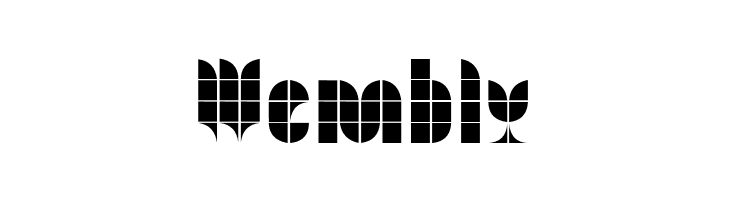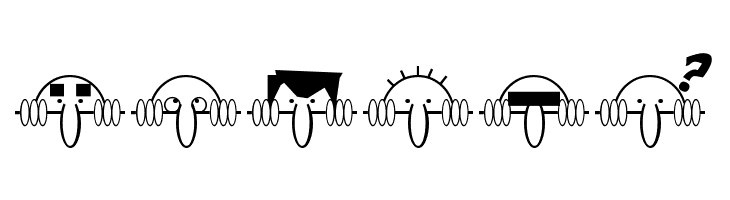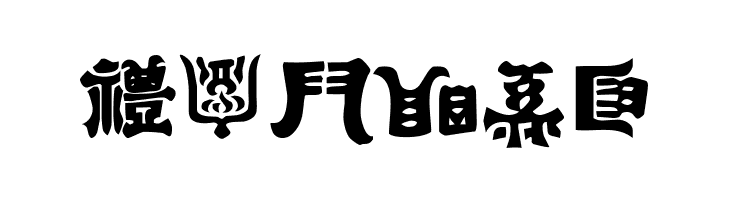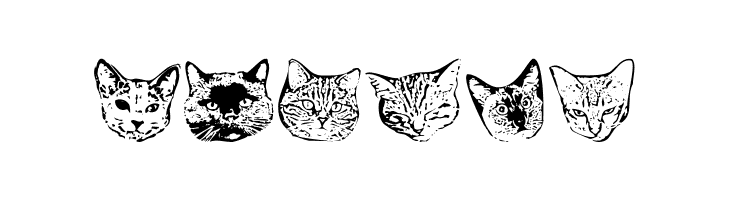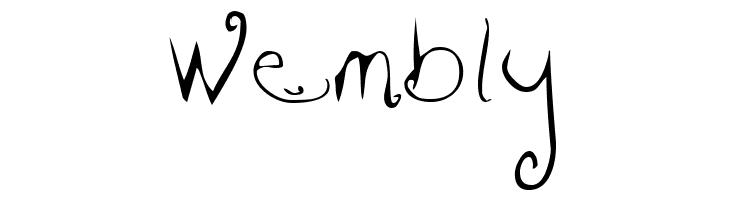
A bold, hand-drawn font with a playful and assertive style.
A bold, graffiti-inspired font with dynamic and energetic characters.
A bold, graffiti-inspired font with rugged, splatter-like details.
A dynamic, brush-style font with an edgy, graffiti-inspired look.
A dynamic, graffiti-inspired font with rough, hand-drawn strokes and a rebellious aesthetic.
A playful and quirky font with irregular, dynamic letterforms.
A playful, handwritten font with dynamic and irregular letterforms.
A bold, cartoonish font with a dripping, hand-drawn style.
A bold, gothic-inspired font with sharp, angular edges and a tribal aesthetic.
An intricate, decorative font with an ancient, hieroglyphic style.
A whimsical and decorative font featuring cartoon-like characters and creatures.
A bold, geometric, and condensed font with a modern, industrial style.
A bold, condensed, and italicized font with a modern, geometric style.
A bold, geometric outline font with a modern, futuristic aesthetic.
A bold, italic, and angular font with a modern and dynamic style.
A whimsical font featuring variations of the 'Kilroy Was Here' doodle for each character.
A bold, geometric font with sharp angles and a modern aesthetic.
A bold, medieval-inspired font with sharp, angular strokes and historical elegance.
A whimsical, decorative font with curly, swirly elements and playful character designs.
Hand-drawn cat face illustrations used as letterforms.